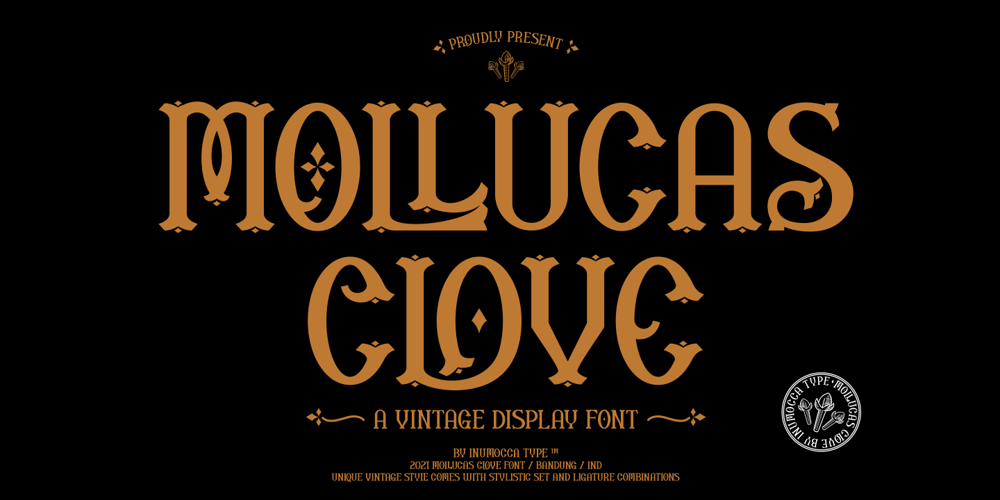
Mollucas Clove Font Family was designed by Inu Mocca and published by Inumocca. Mollucas Clove contains 1 styles and family package options. Mollucas Clove is A Vintage Display Font, Unique Vintage StyleWith Some Stylistic Set and Ligature CombinationsExellent typeface to use for covering your Project, like Branding, Movie Title, Headline Letter, Bookcover or Book Content, Magazine cover, Poster, Quotes Lettering, Logos, and more your project design.- Unique glyphs- Multilingual Characters Support- UPPERCASE- Lowercase- Numeric- Symbol- Punctuation Character- Ligature- Stylistic Setinumocca type Studio